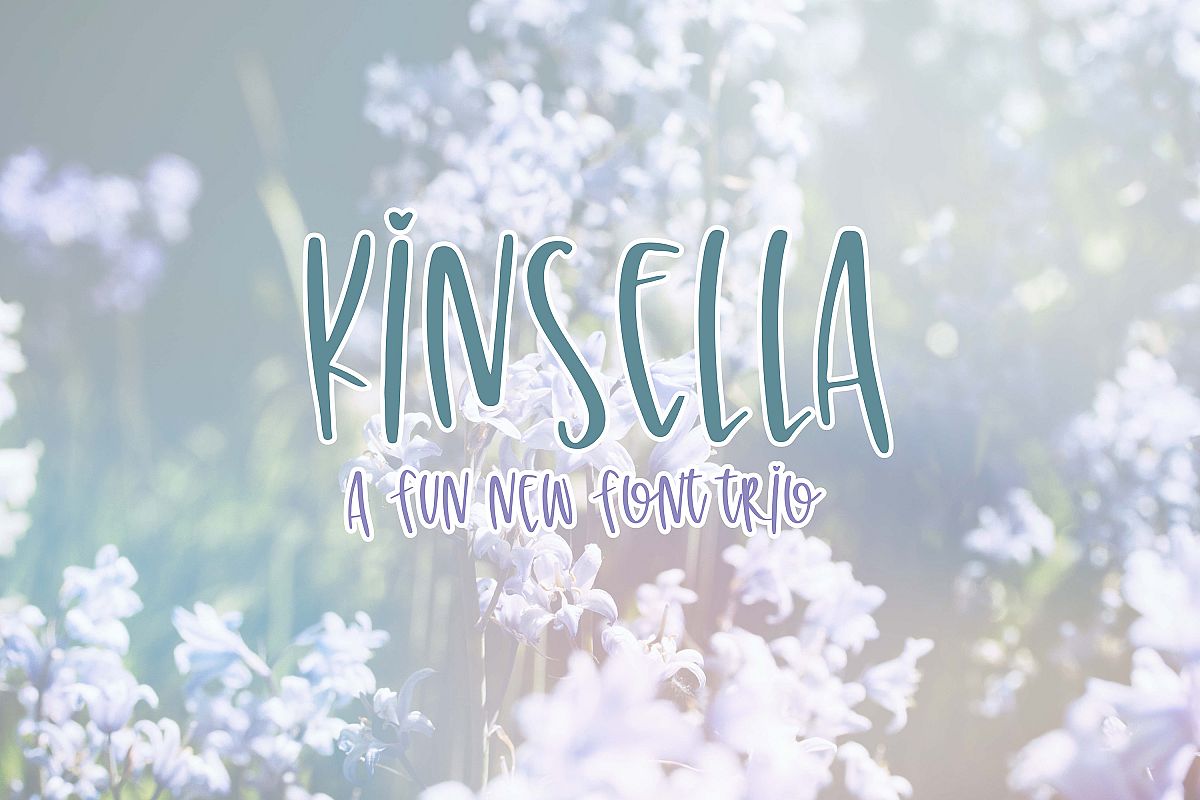
Kinsella Trio
KinsellaHand
KinsellaSans
KinsellaScript
Introducing my newest font Trio, Kinsella! Includes Fun and quirky Kinsella sans, a little more upscale Kinsella Sans and a sweet script called Kinsella Script.
Kinsella Trio